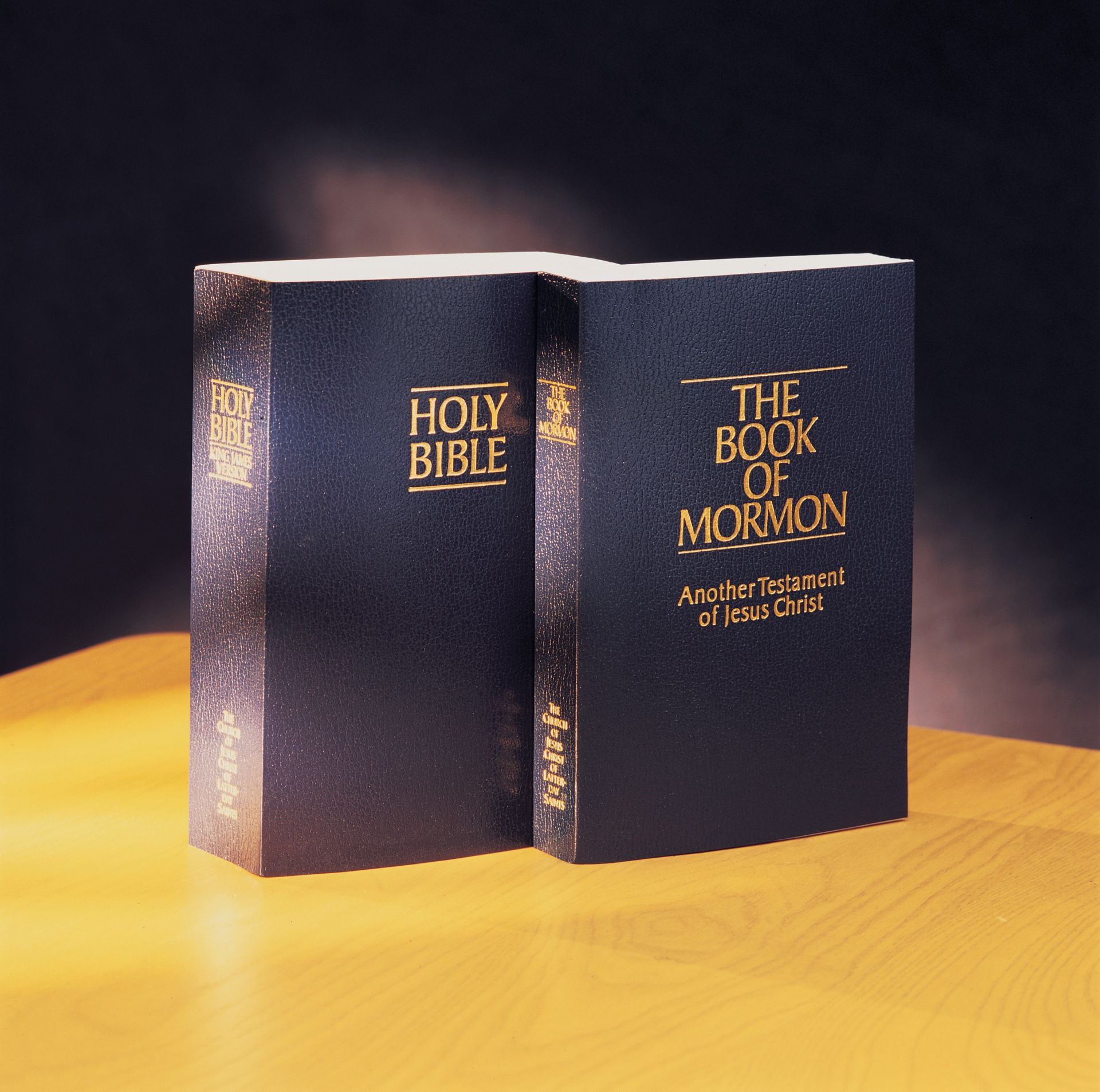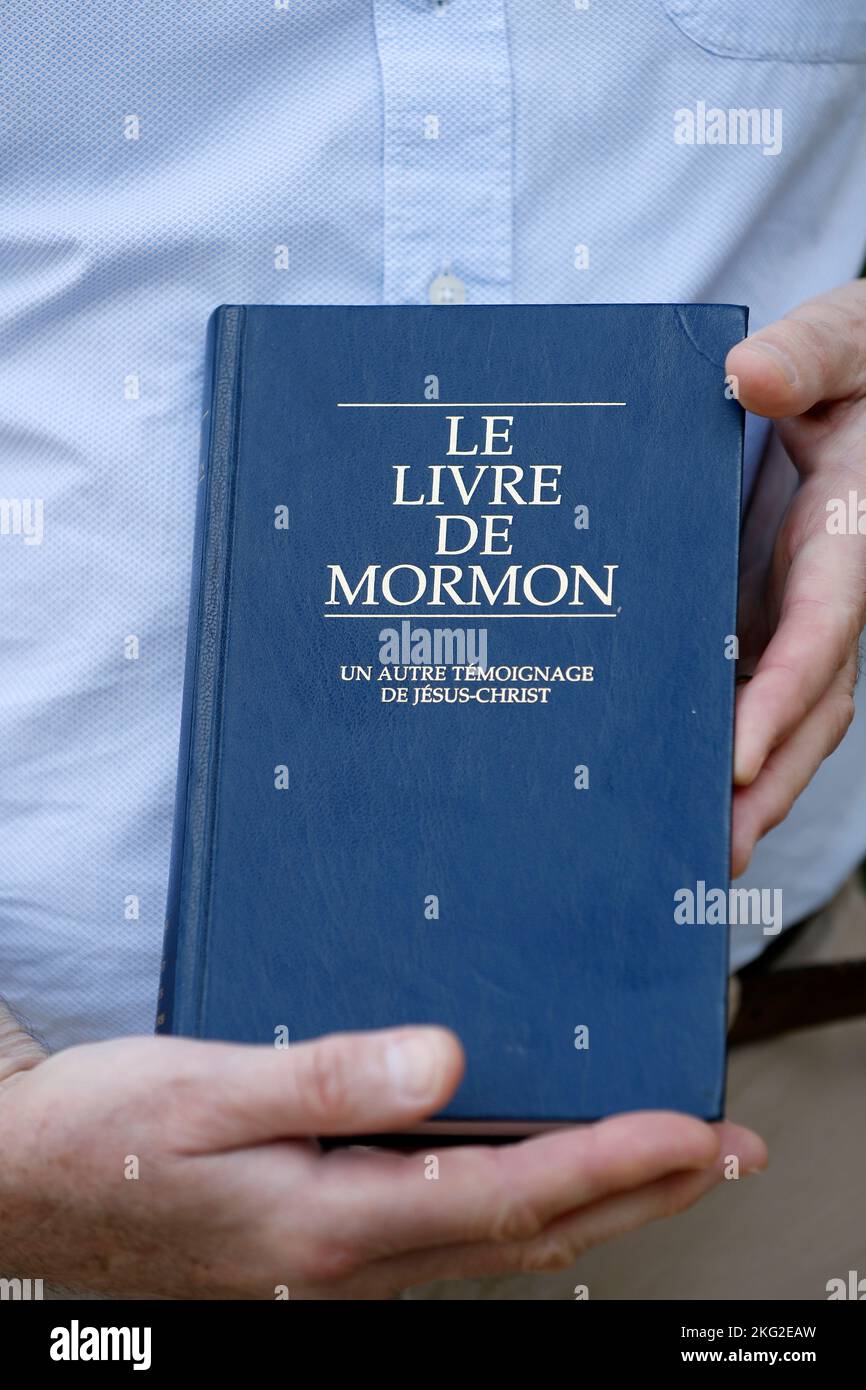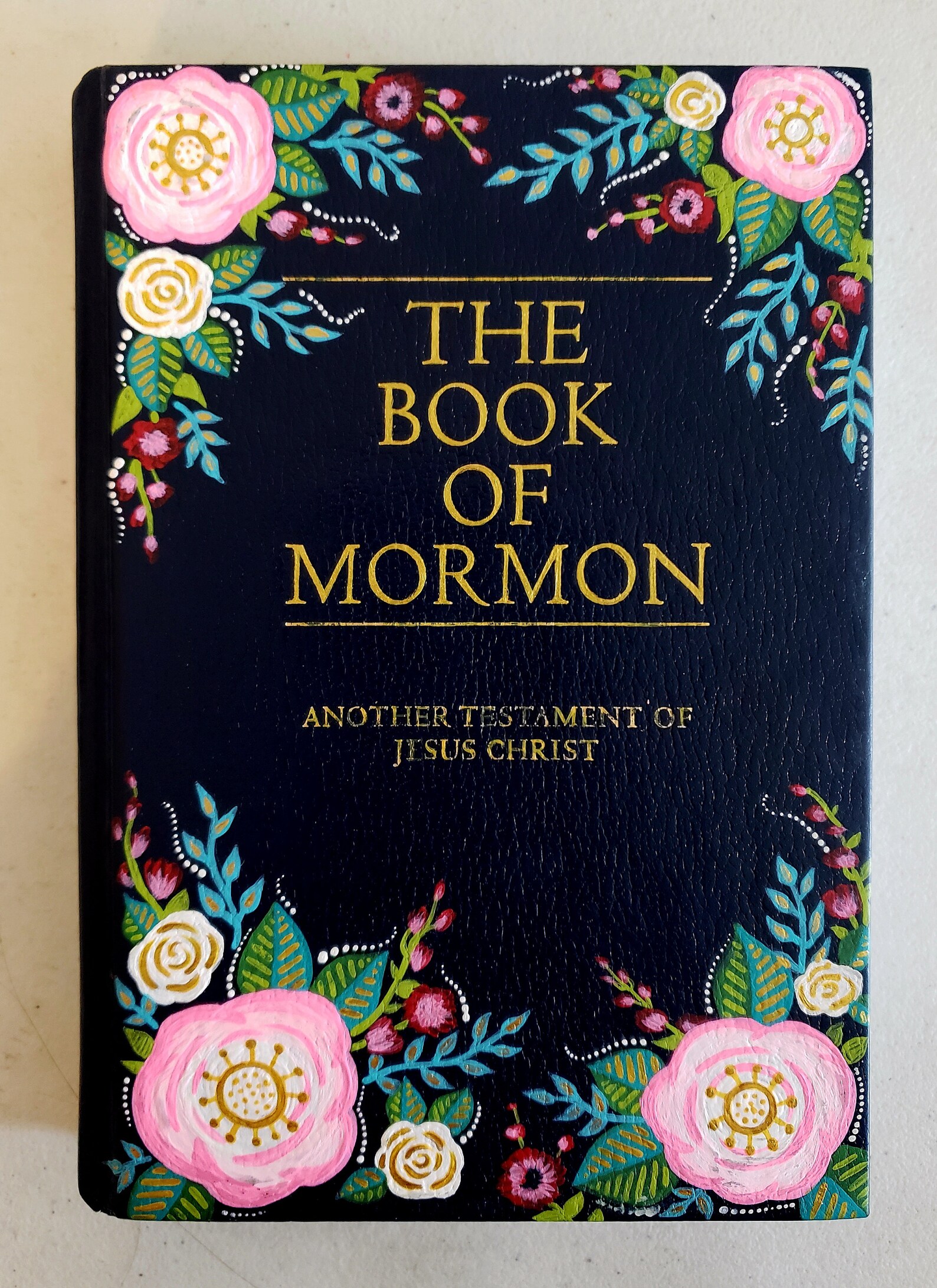
What Font Is The Book Of Mormon In . In the book of mormon, all scripture text that is part of the translation from the plates has been placed in roman typeface. As seen above, the title book of mormon appears on a black background with seven gilded. That's why the church uses a combination of the zoram, mckay, and noto (among others) font families with various. I may do it out of curiosity tonight anyway. Unfortunately, i don't have a copy of the book of mormon with me, or i could probably tell you through using this website. The book of mormon, doctrine and covenants, and the perl of great price (triple combination) in the deseret alphabet is available here triple.pdf, in pdf form, courtesy of john h.
That's why the church uses a combination of the zoram, mckay, and noto (among others) font families with various. I may do it out of curiosity tonight anyway. The book of mormon, doctrine and covenants, and the perl of great price (triple combination) in the deseret alphabet is available here triple.pdf, in pdf form, courtesy of john h. Unfortunately, i don't have a copy of the book of mormon with me, or i could probably tell you through using this website. In the book of mormon, all scripture text that is part of the translation from the plates has been placed in roman typeface. As seen above, the title book of mormon appears on a black background with seven gilded.
What Font Is The Book Of Mormon In That's why the church uses a combination of the zoram, mckay, and noto (among others) font families with various. That's why the church uses a combination of the zoram, mckay, and noto (among others) font families with various. As seen above, the title book of mormon appears on a black background with seven gilded. I may do it out of curiosity tonight anyway. Unfortunately, i don't have a copy of the book of mormon with me, or i could probably tell you through using this website. The book of mormon, doctrine and covenants, and the perl of great price (triple combination) in the deseret alphabet is available here triple.pdf, in pdf form, courtesy of john h. In the book of mormon, all scripture text that is part of the translation from the plates has been placed in roman typeface.
ScriptureSight A Guide to 45 SelfContained Book of Mormon Chapter Studies What Font Is The Book Of Mormon In In the book of mormon, all scripture text that is part of the translation from the plates has been placed in roman typeface. That's why the church uses a combination of the zoram, mckay, and noto (among others) font families with various. I may do it out of curiosity tonight anyway. Unfortunately, i don't have a copy of the book. What Font Is The Book Of Mormon In.
The Bible and the Book of Mormon Testify of Christ (The Bible and Book What Font Is The Book Of Mormon In In the book of mormon, all scripture text that is part of the translation from the plates has been placed in roman typeface. I may do it out of curiosity tonight anyway. The book of mormon, doctrine and covenants, and the perl of great price (triple combination) in the deseret alphabet is available here triple.pdf, in pdf form, courtesy of. What Font Is The Book Of Mormon In.
Book of Mormon Reading Chart THE MORMON HOME Reading charts, Book What Font Is The Book Of Mormon In Unfortunately, i don't have a copy of the book of mormon with me, or i could probably tell you through using this website. In the book of mormon, all scripture text that is part of the translation from the plates has been placed in roman typeface. The book of mormon, doctrine and covenants, and the perl of great price (triple. What Font Is The Book Of Mormon In.
Custom Hand Painted Book of Mormon Etsy What Font Is The Book Of Mormon In In the book of mormon, all scripture text that is part of the translation from the plates has been placed in roman typeface. Unfortunately, i don't have a copy of the book of mormon with me, or i could probably tell you through using this website. That's why the church uses a combination of the zoram, mckay, and noto (among. What Font Is The Book Of Mormon In.
The Book of Mormon Title Page YouTube What Font Is The Book Of Mormon In In the book of mormon, all scripture text that is part of the translation from the plates has been placed in roman typeface. The book of mormon, doctrine and covenants, and the perl of great price (triple combination) in the deseret alphabet is available here triple.pdf, in pdf form, courtesy of john h. That's why the church uses a combination. What Font Is The Book Of Mormon In.
The Book of Mormon ranks as 6th most published book in the world What Font Is The Book Of Mormon In I may do it out of curiosity tonight anyway. In the book of mormon, all scripture text that is part of the translation from the plates has been placed in roman typeface. Unfortunately, i don't have a copy of the book of mormon with me, or i could probably tell you through using this website. The book of mormon, doctrine. What Font Is The Book Of Mormon In.
Why is the Book of Mormon a Classic? Book of Mormon Central What Font Is The Book Of Mormon In That's why the church uses a combination of the zoram, mckay, and noto (among others) font families with various. The book of mormon, doctrine and covenants, and the perl of great price (triple combination) in the deseret alphabet is available here triple.pdf, in pdf form, courtesy of john h. As seen above, the title book of mormon appears on a. What Font Is The Book Of Mormon In.
Share the Book of Mormon What Font Is The Book Of Mormon In The book of mormon, doctrine and covenants, and the perl of great price (triple combination) in the deseret alphabet is available here triple.pdf, in pdf form, courtesy of john h. Unfortunately, i don't have a copy of the book of mormon with me, or i could probably tell you through using this website. In the book of mormon, all scripture. What Font Is The Book Of Mormon In.